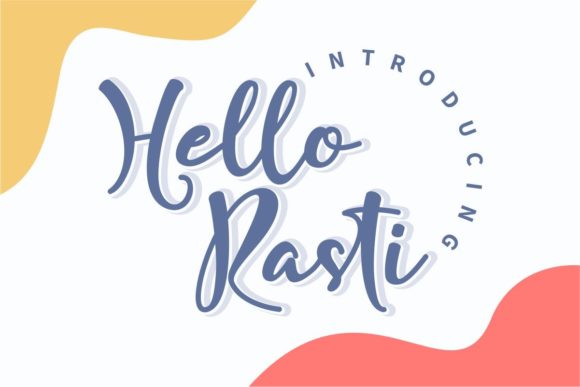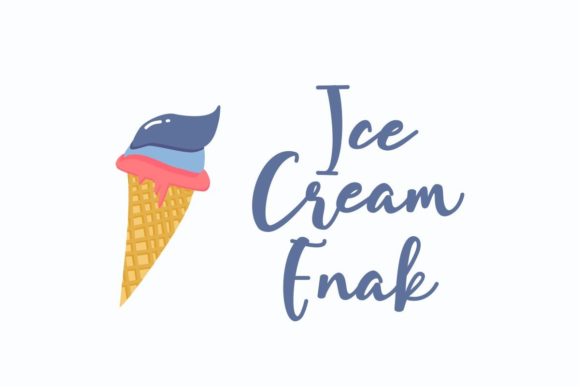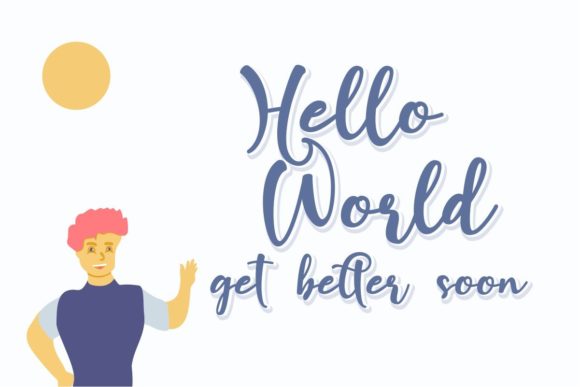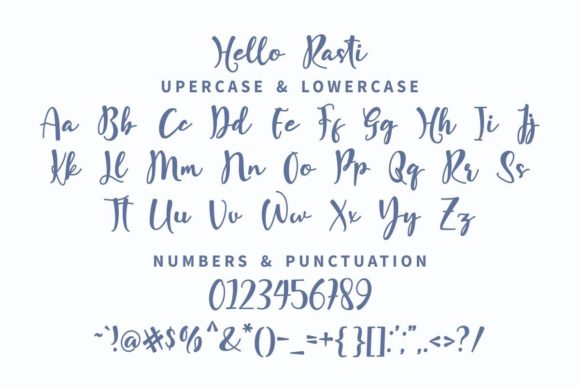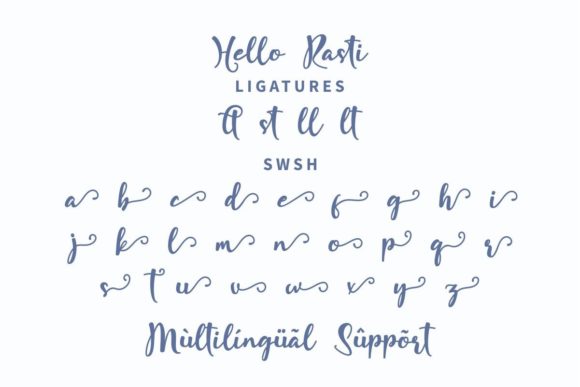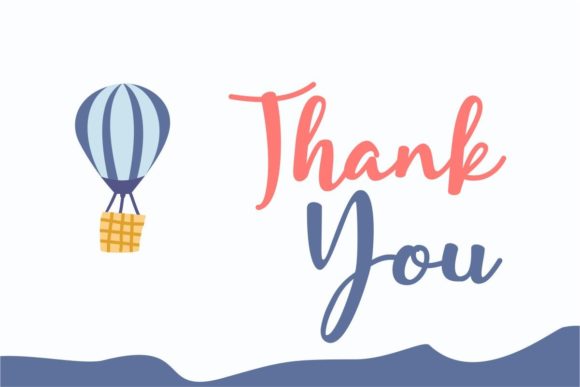
Hello Rasti Font
About Hello Rasti Font
Introducing Hello Rasti, a whimsical and sweet paint brushed handwritten font that will add a delightful touch to your designs. With its playful and organic style, this font captures the essence of hand-painted lettering, bringing a unique and charming vibe to your projects.
Hello Rasti is carefully crafted to evoke a sense of whimsy and creativity. Each letter has been lovingly painted with a brush, creating a natural and handcrafted appearance. The irregular brush strokes and imperfect edges give the font a playful and artistic feel, perfect for adding a touch of personality to your designs.
This font is PUA encoded, which means you have easy access to all the special glyphs and swashes. With a wide range of alternate characters and decorative elements, you can customize your text and create unique and eye-catching compositions. Whether you’re writing love letters, designing wedding invitations, or working on any other creative project, Hello Rasti offers plenty of creative possibilities.
The versatility of Hello Rasti allows it to shine in various design applications. Its whimsical and sweet nature makes it a perfect fit for romantic and joyful designs. Use it to add a touch of playfulness to greeting cards, quotes, branding, social media graphics, and more. The possibilities are endless!
In summary, Hello Rasti is a whimsical and sweet paint brushed handwritten font that brings a playful and artistic vibe to your designs. With its natural and handcrafted appearance, this font is perfect for adding a touch of personality and charm to your love letters, wedding invitations, and other creative projects. Explore the endless possibilities of Hello Rasti and let your imagination run wild!